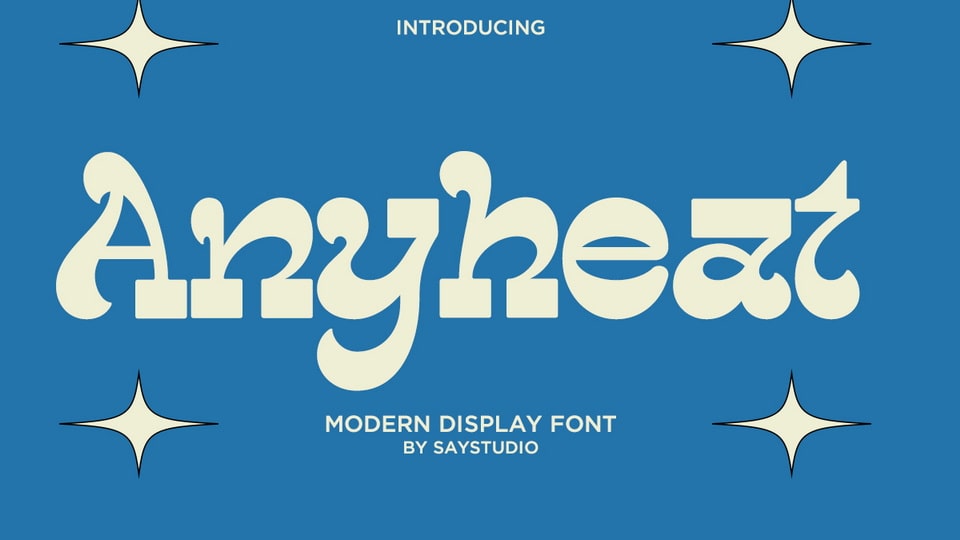
Download Anyheat font, a bold and expressive modern display typeface that blends retro charm with contemporary design. Its unique character shapes—featuring playful curves, dramatic contrasts.
Designer: Saystudio